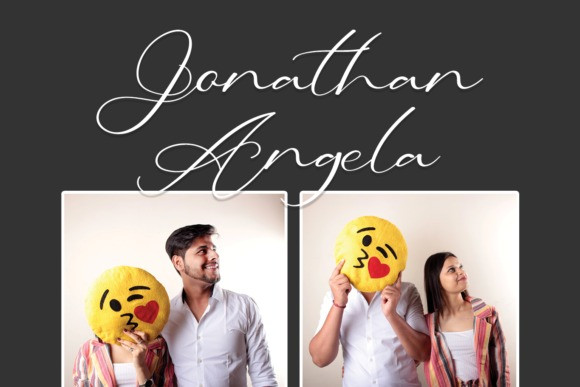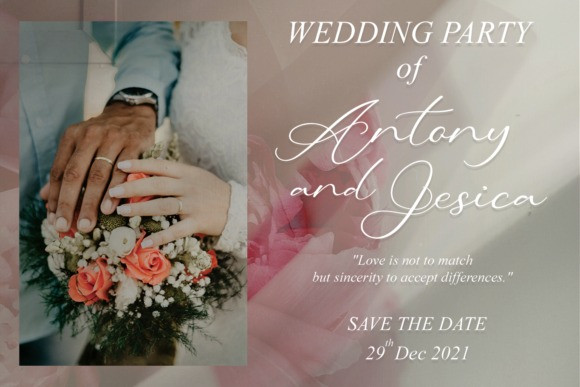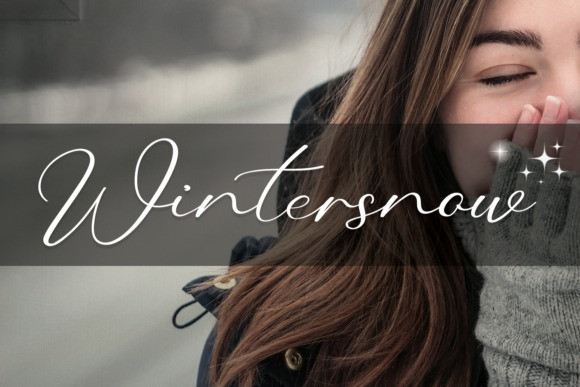
Wintersnow Font
Wintersnow Font is a romantic and sweet calligraphy typeface with characters that dance along the baseline. It will add a luxury spark to any design project that you wish to create!